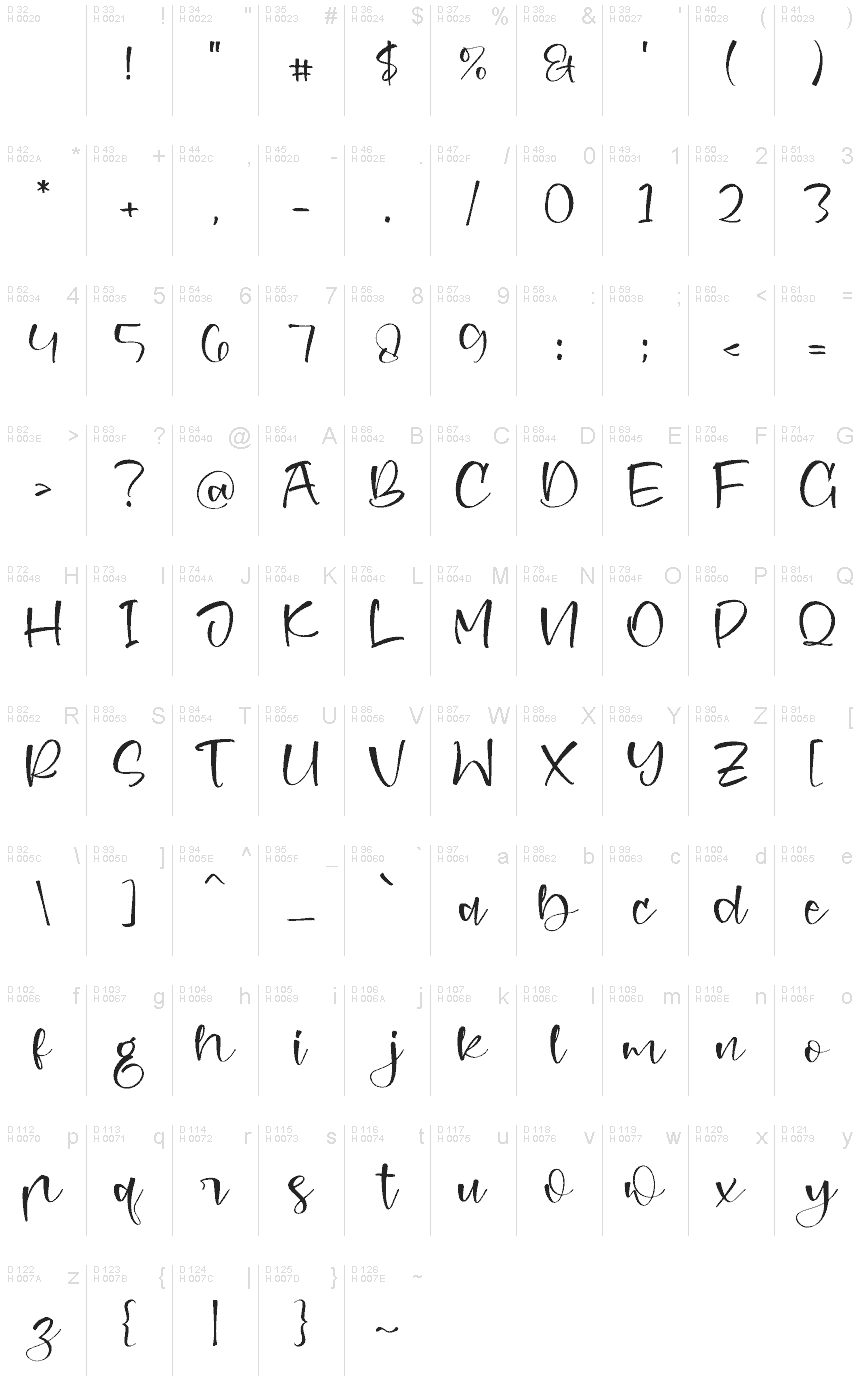
Wonder Justice
Wonder Justice font is a flowing handwritten font designed by Perspectype Studio - Letterena.com. This expressive typeface displays modern calligraphic elements and artistic flair. It offers elegant curves and a feminine touch in any design where it’s used.